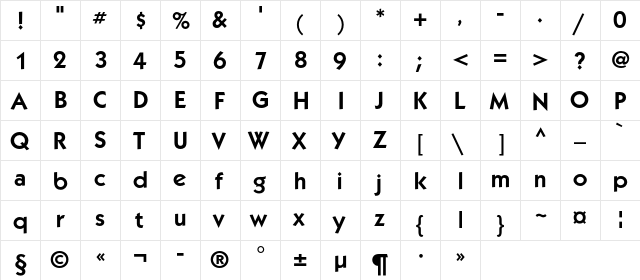
Kabel BookC Bold
Design Context for Kabel BookC Typeface
Kabel BookC takes a measured approach to typography — its balanced proportions and neutral character make it a reliable workhorse for both digital and print work. The heavy weight commands attention and anchors typographic hierarchies.